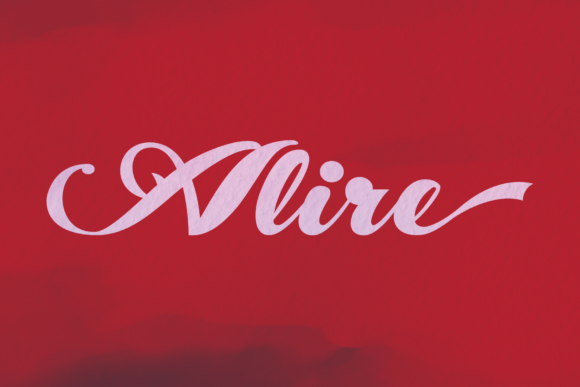
Step into a world of timeless elegance with Alire Font, a captivating script font that exudes the charm of yesteryears. Its graceful curves and intricate details evoke a sense of nostalgia, transporting you back to an era of handwritten letters and vintage design.
Crafted by the meticulous hands of ogit, Alire Font embodies the essence of classic typography. Each character is a work of art, carefully designed to replicate the delicate flow of ink on paper. The result is a font that oozes sophistication and elegance, adding a touch of old-world charm to your digital creations.
With its timeless appeal, Alire Font is the perfect choice for those seeking to add a touch of vintage flair to their projects. Whether you're a graphic designer, a blogger, or simply someone who appreciates the beauty of classic typography, Alire Font will elevate your designs to new heights.
Immerse yourself in the world of Alire Font and discover the endless possibilities it holds. Let your creativity soar as you explore its versatile range of applications:
- Compose heartfelt love letters that capture the essence of romance.
- Design stunning wedding invitations that reflect the elegance of the occasion.
- Create eye-catching posters and flyers that transport viewers to a bygone era.
- Craft logos and branding that exude a sense of heritage and tradition.
- Add a touch of nostalgia to your social media posts and online content.
With Alire Font, the possibilities are endless. Unleash your imagination and let the magic of this remarkable font work its wonders. Embrace the allure of classic typography and elevate your designs to new heights of sophistication and beauty.